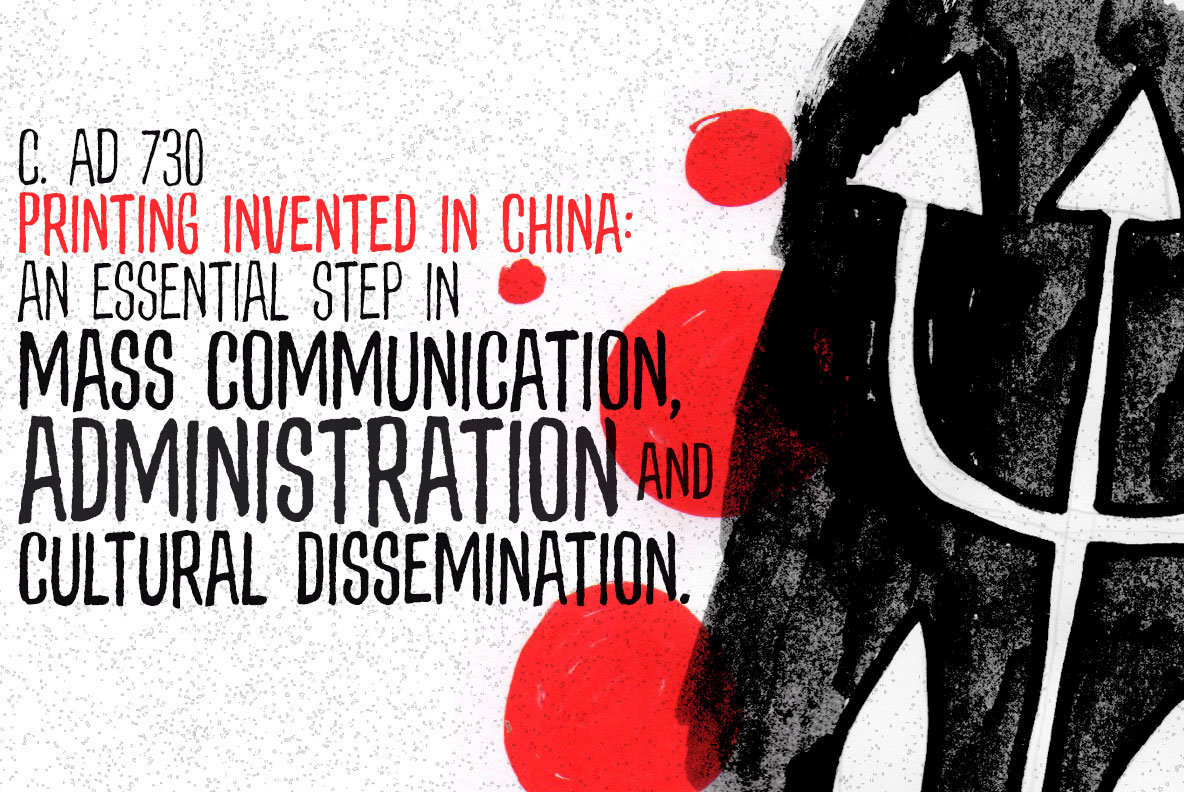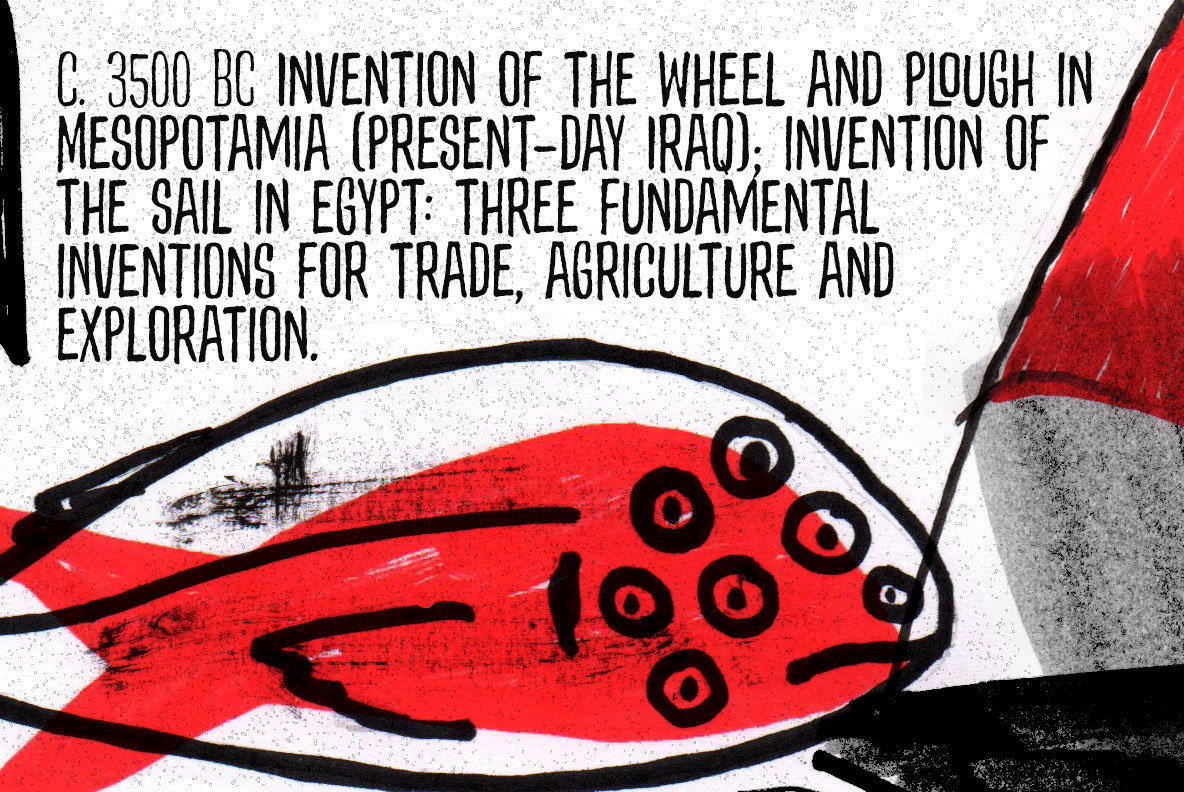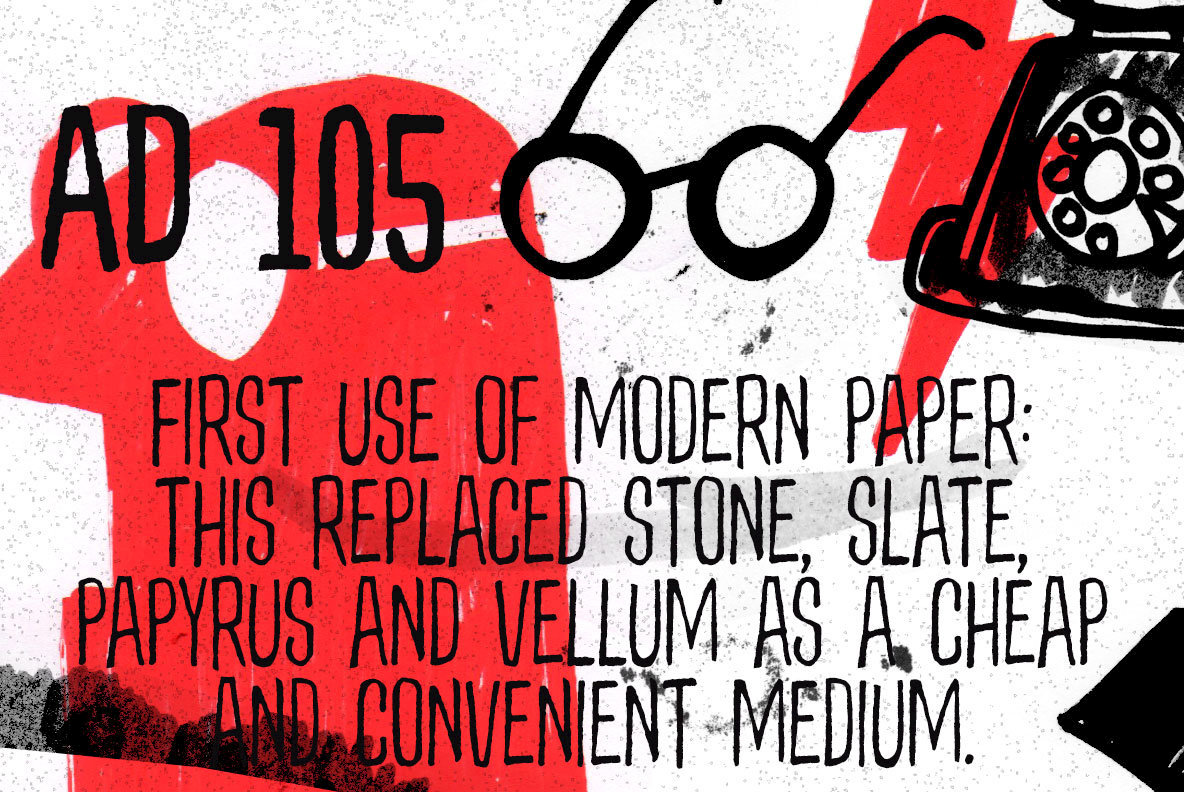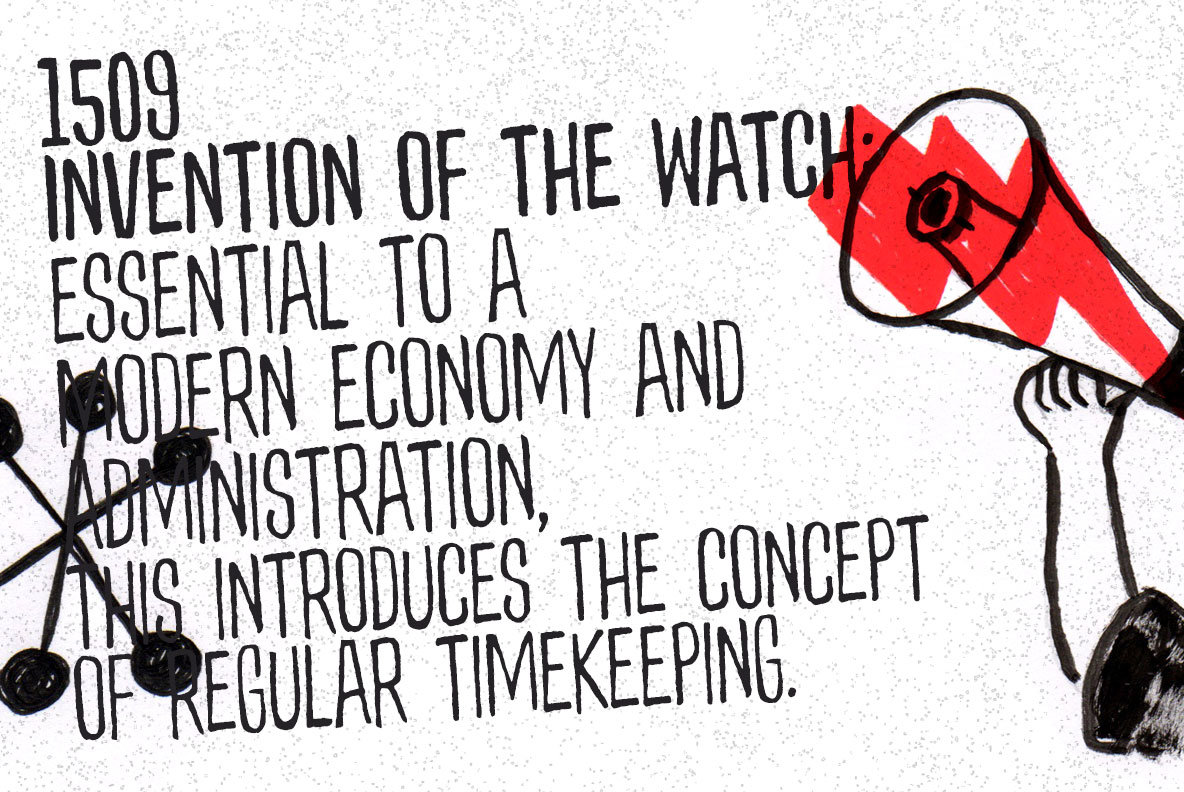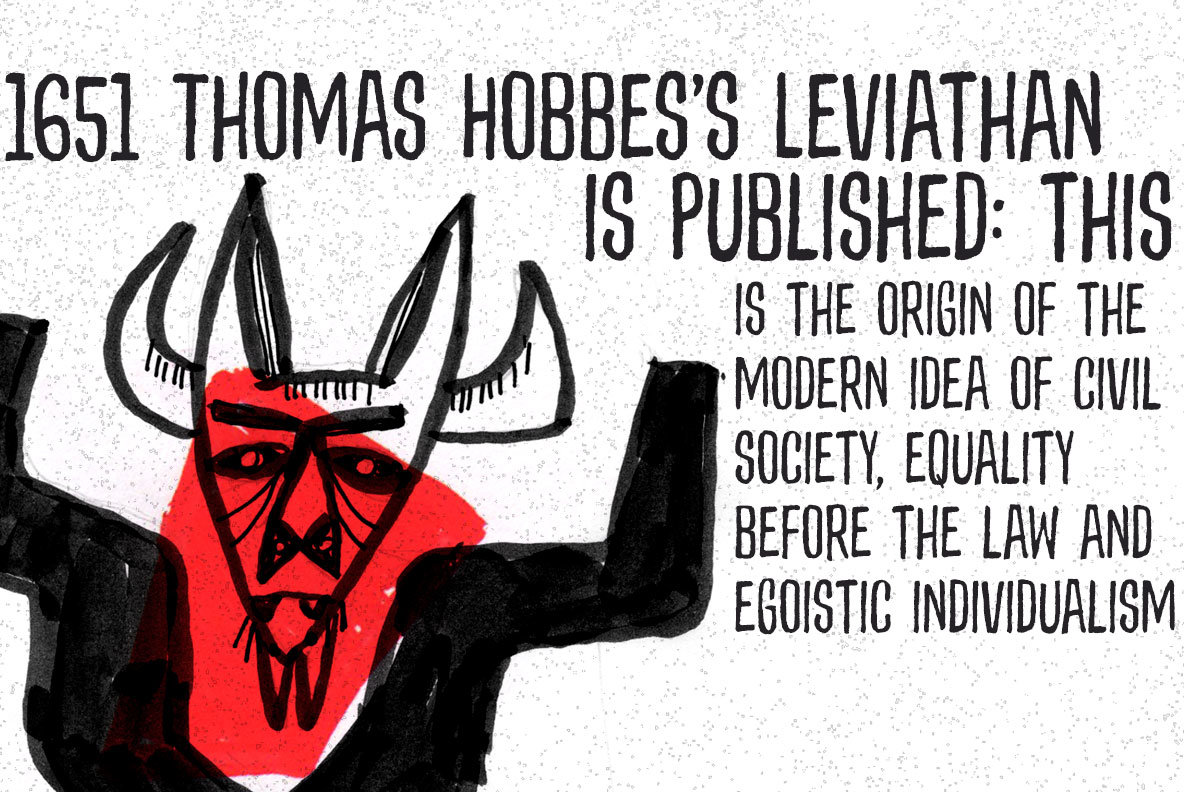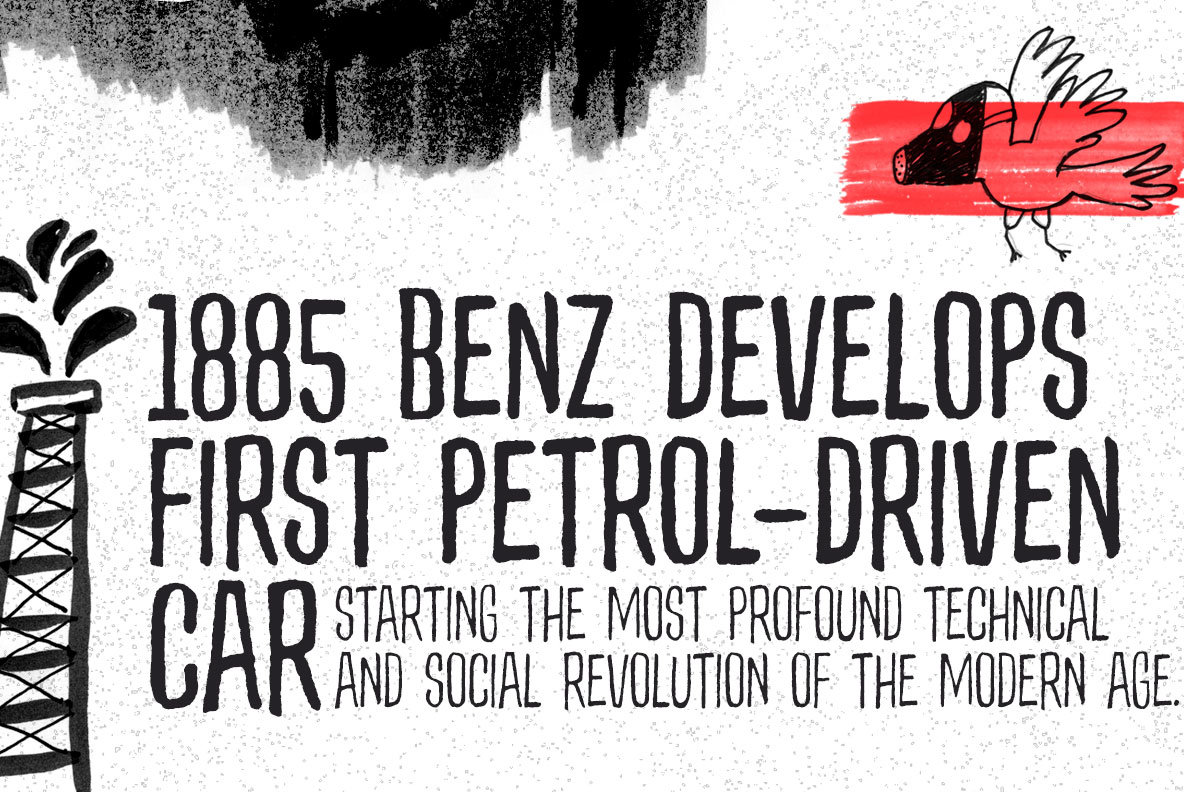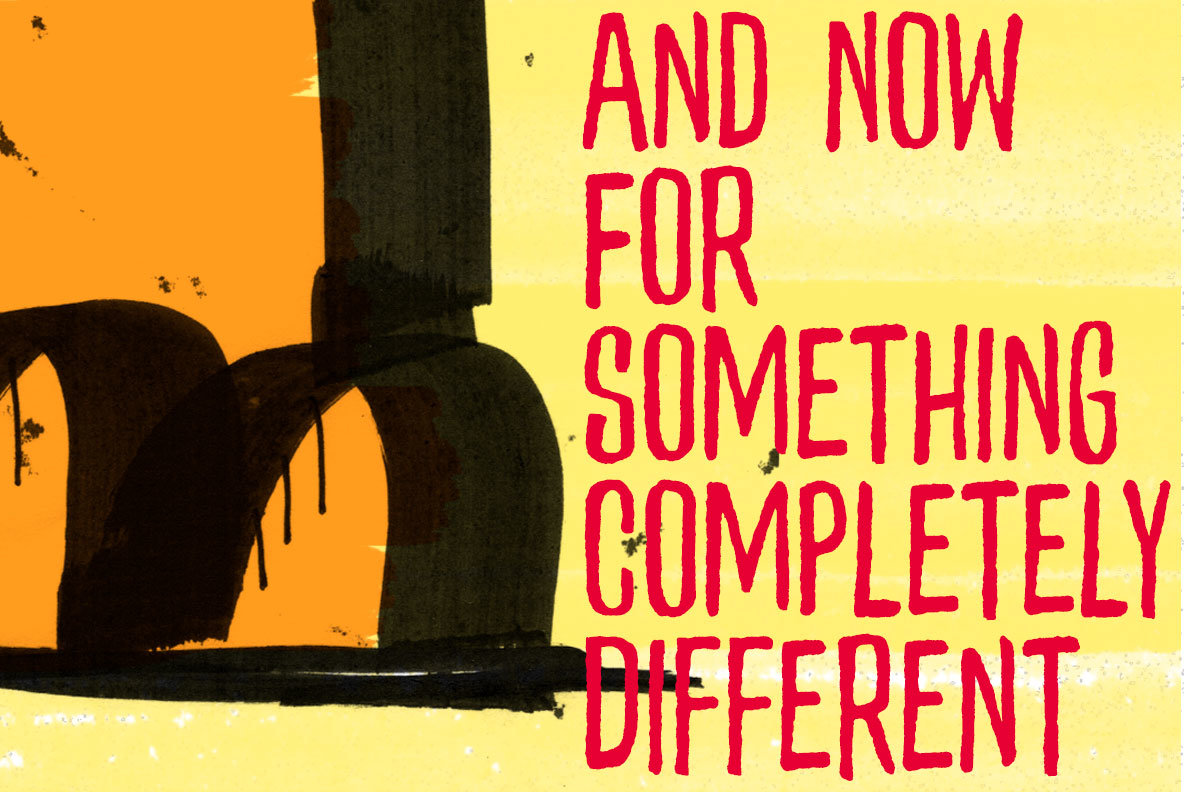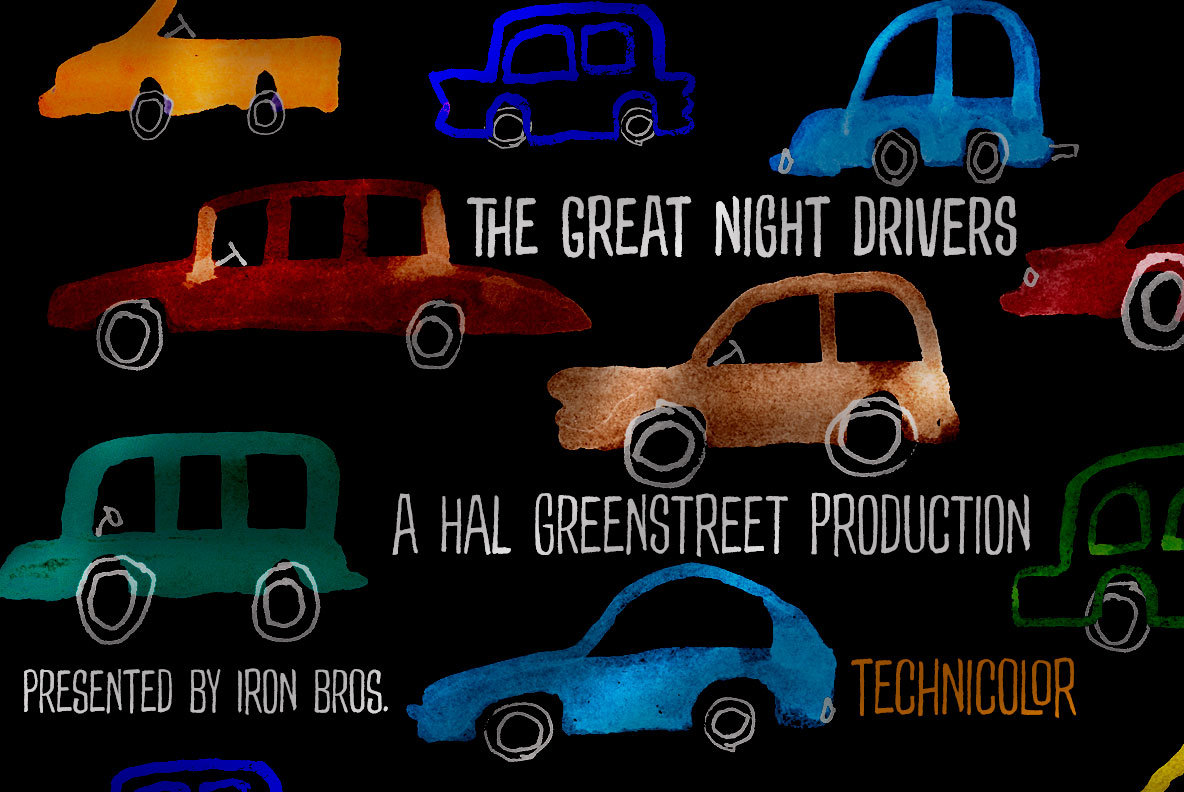
Plumcake Font
A bittersweet hand-drawn face, pleasing and assertive. Available in two weights, both all caps, with alternates for each letter. Comes with some ligatures and handy swash alternates to sweeten things up every now and again. Starting… Now!